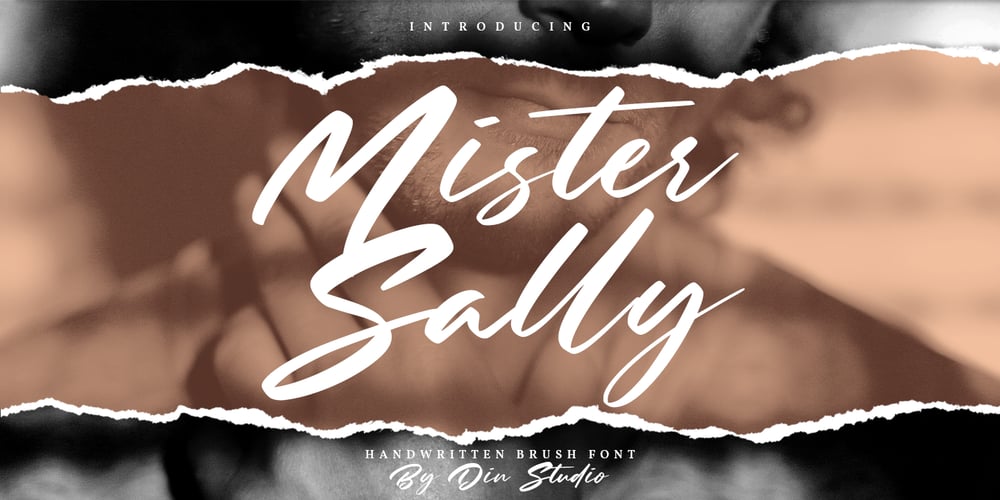
Mister Sally
Mister Sally font
Mister Sally Font Family was designed by Donis Miftahudin and published by Din Studio. Mister Sally contains 1 styles and family package options. Mister Sally is a handwritten brush font. With a classy and beautiful handwritten style, it brings a classy and chic typeface. Made for any professional projects. Mister Sally is best used for weddings, branding, logotype, and quotes.Features: Beautiful Ligatures Multilingual Support PUA Encoded Numerals and Punctuation